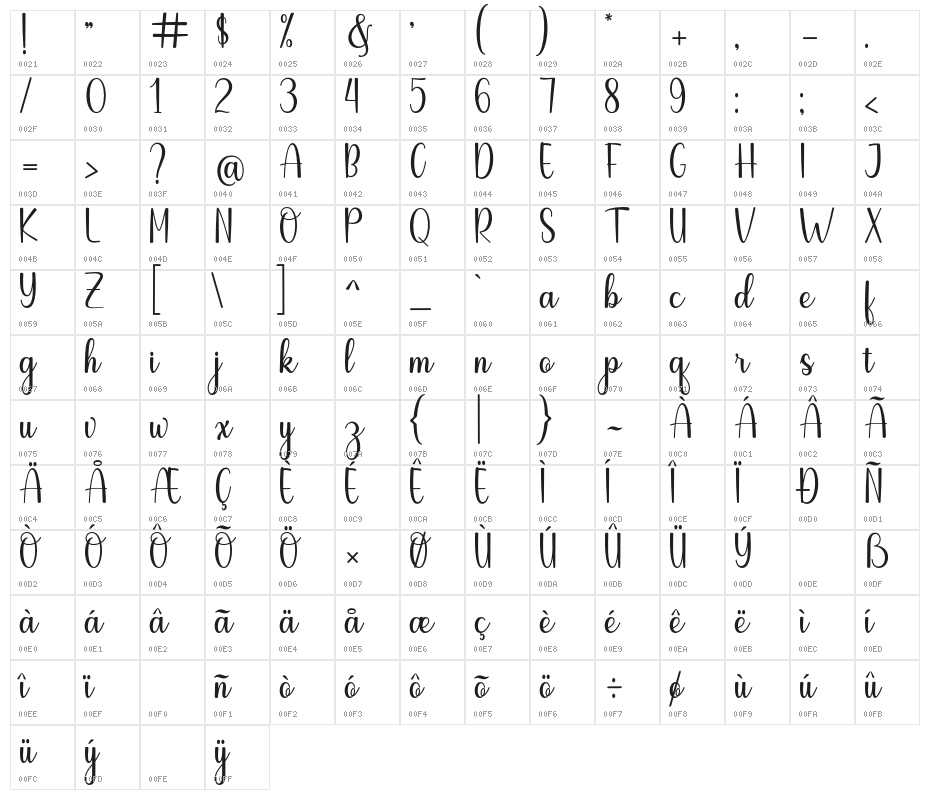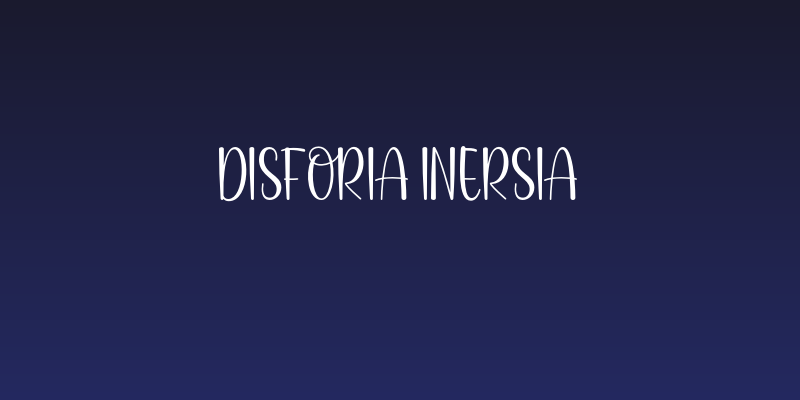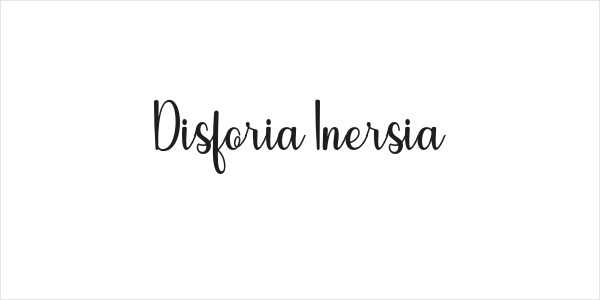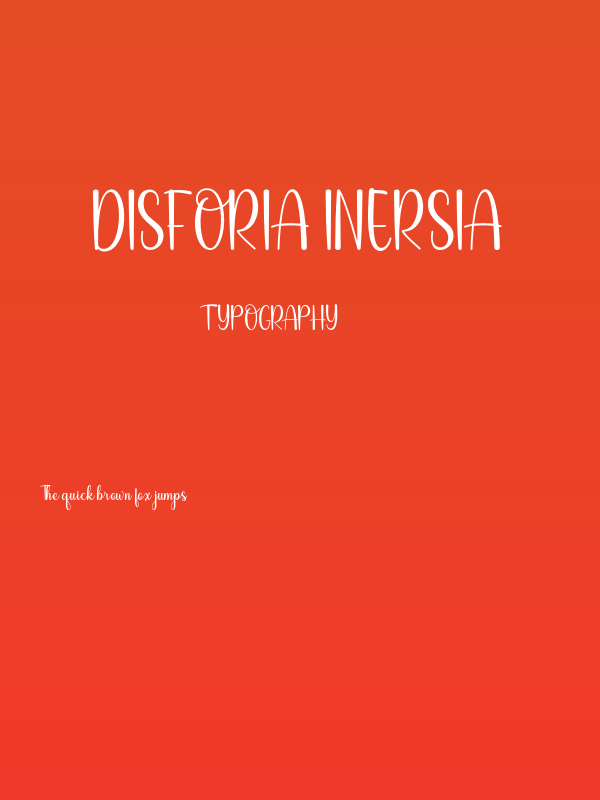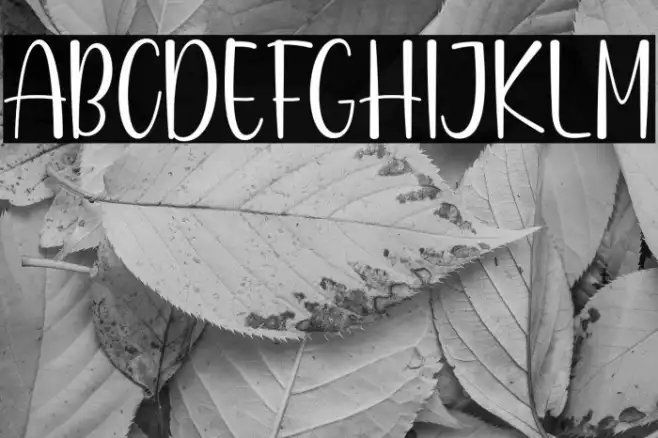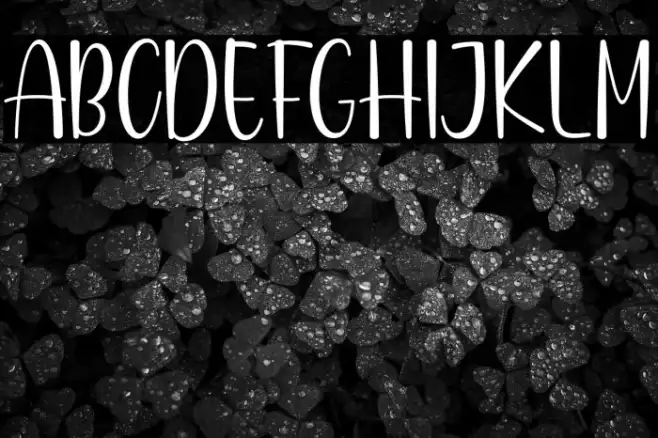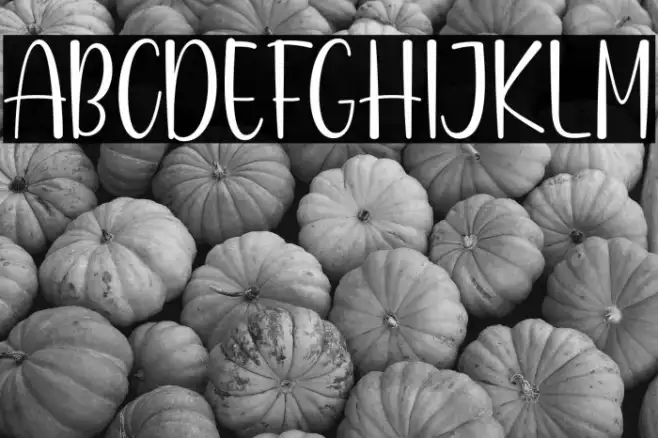
Disforia Inersia Font
Disforia Inersia Description
This font features a playful and casual handwritten style, combining both uppercase and lowercase letters with a smooth, flowing appearance. The uppercase letters are tall and slender, with a slight slant that adds a dynamic feel. The lowercase letters are more rounded and connected, giving a sense of continuity and fluidity. Numbers are consistent with the overall style, maintaining the same playful and informal look. Special characters are creatively designed, fitting seamlessly with the rest of the font. The overall impression is friendly and approachable, making it suitable for a variety of informal and creative projects.